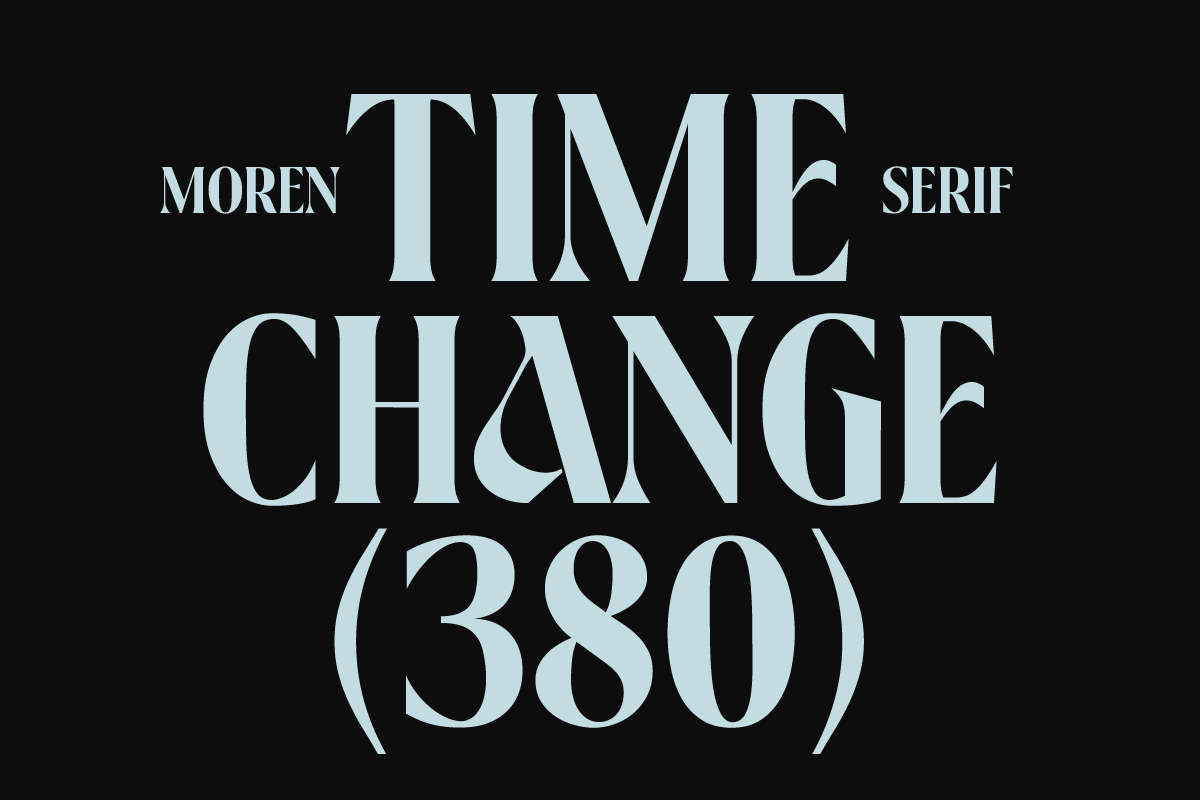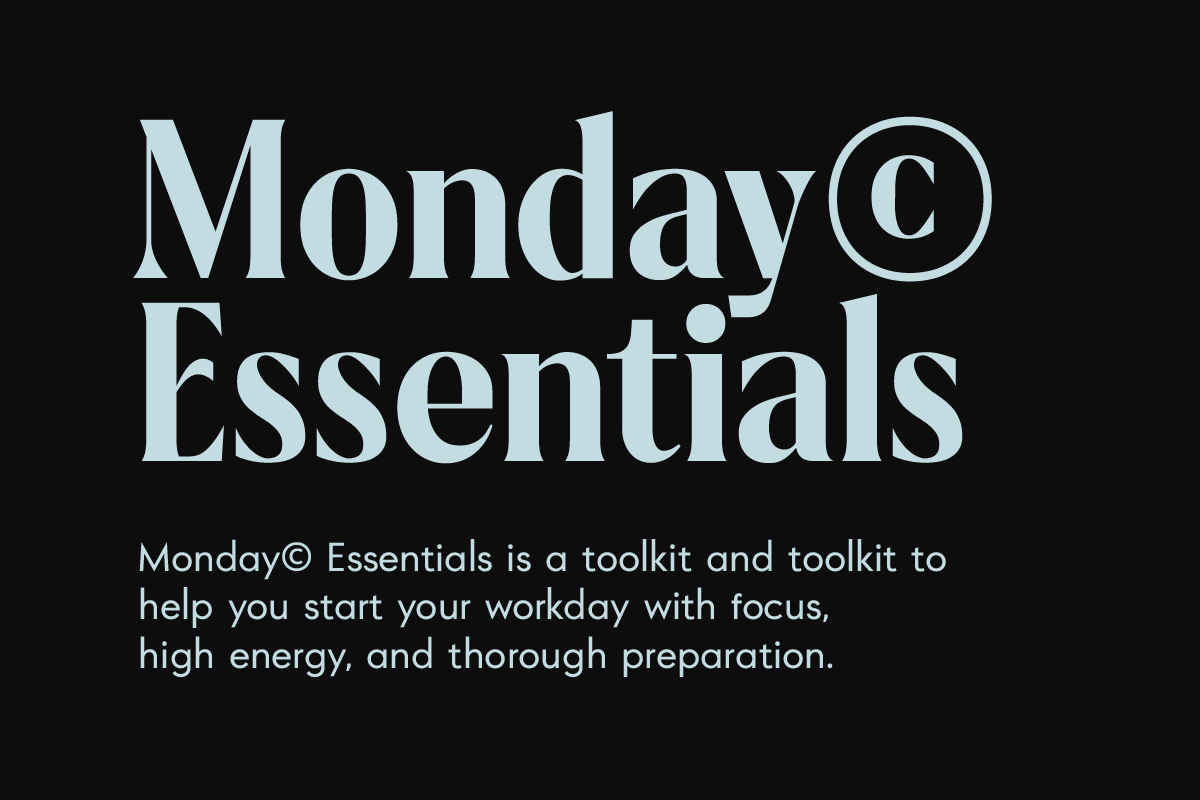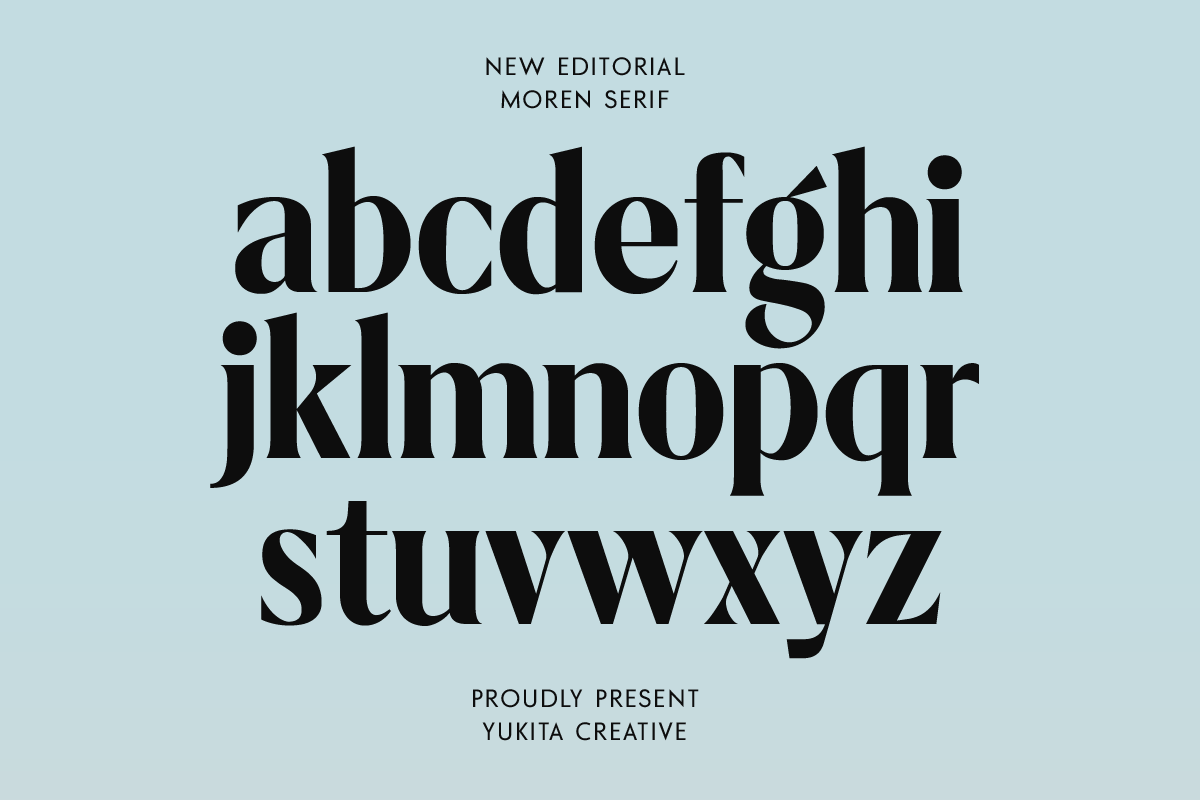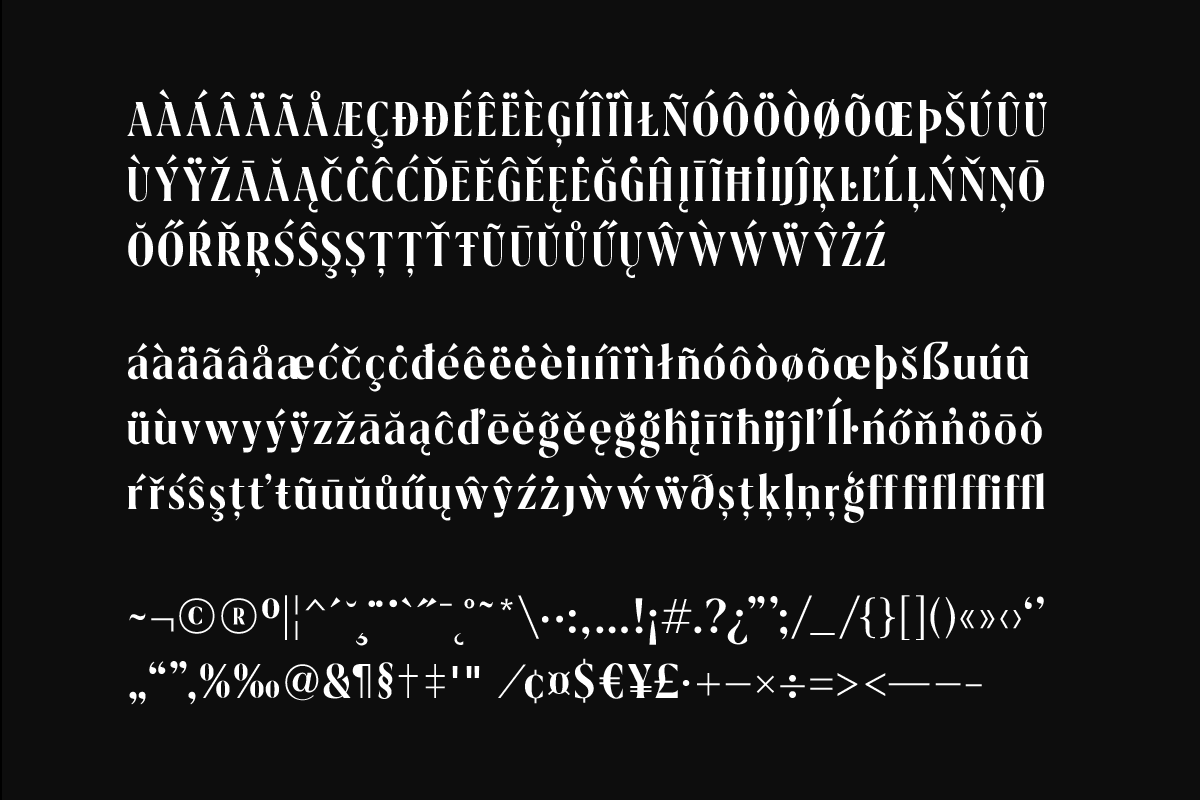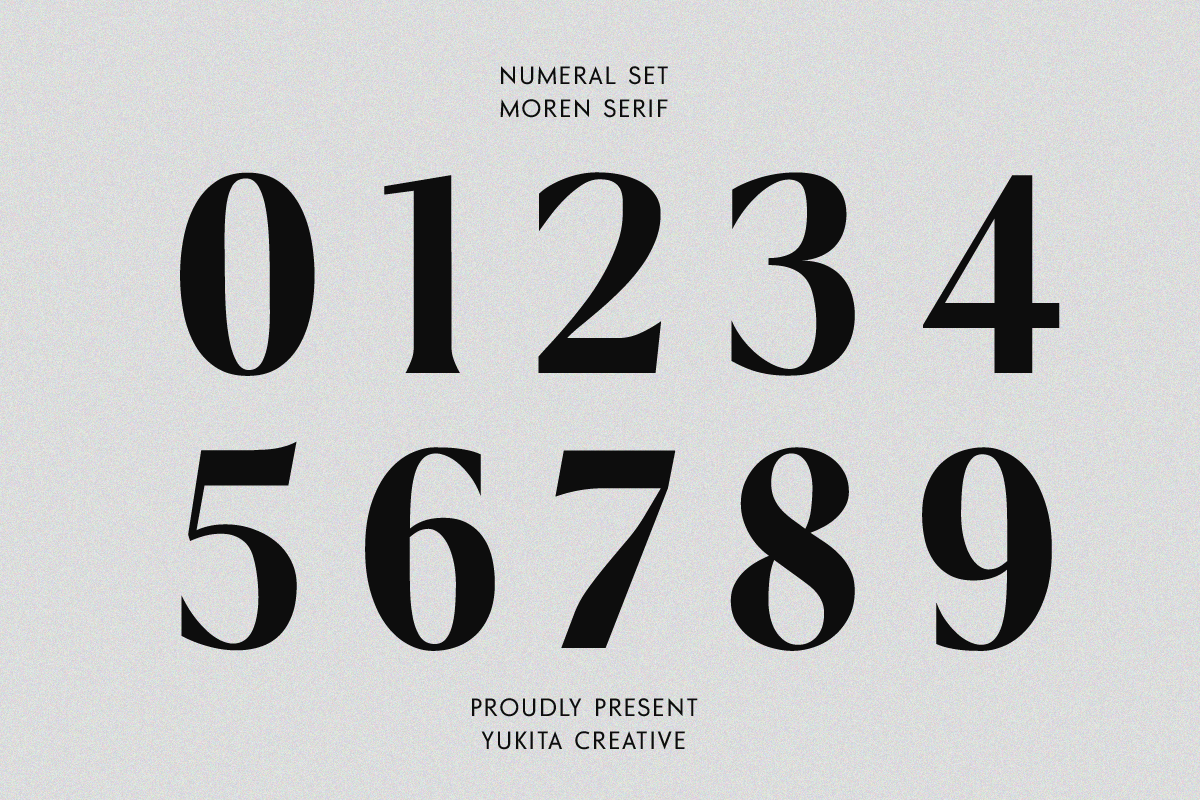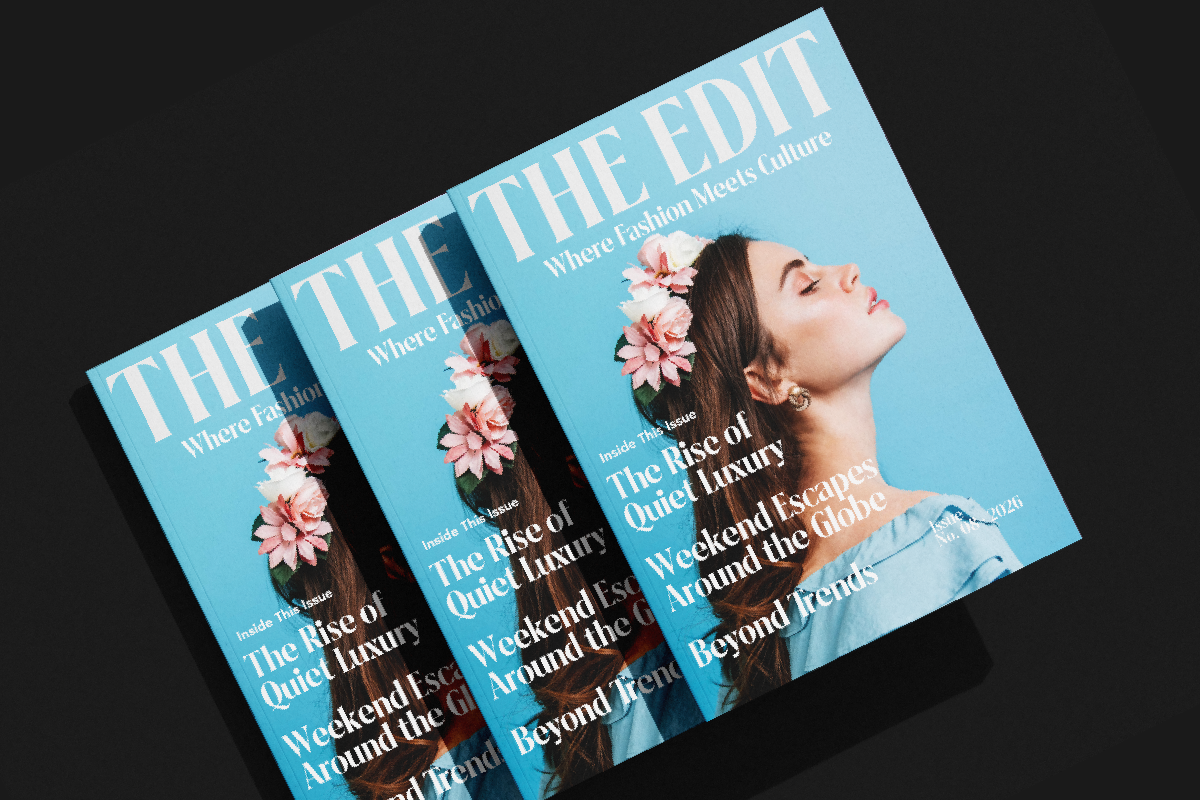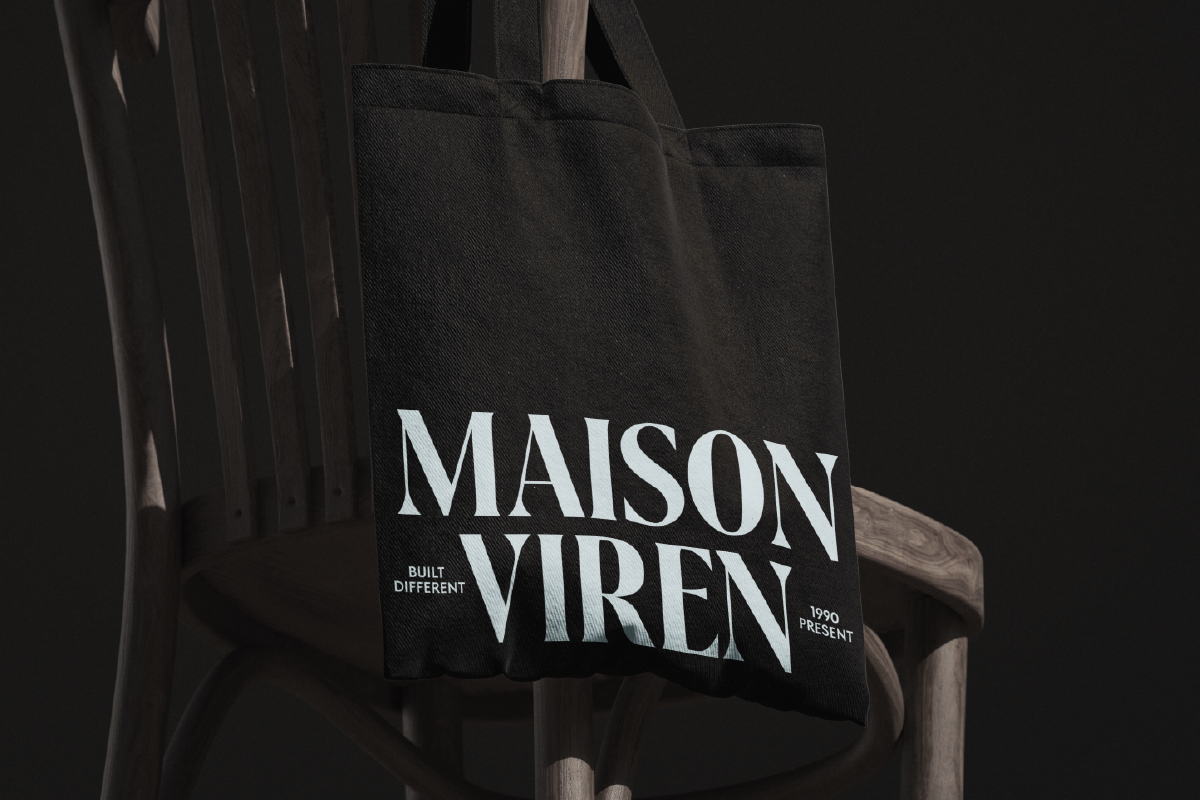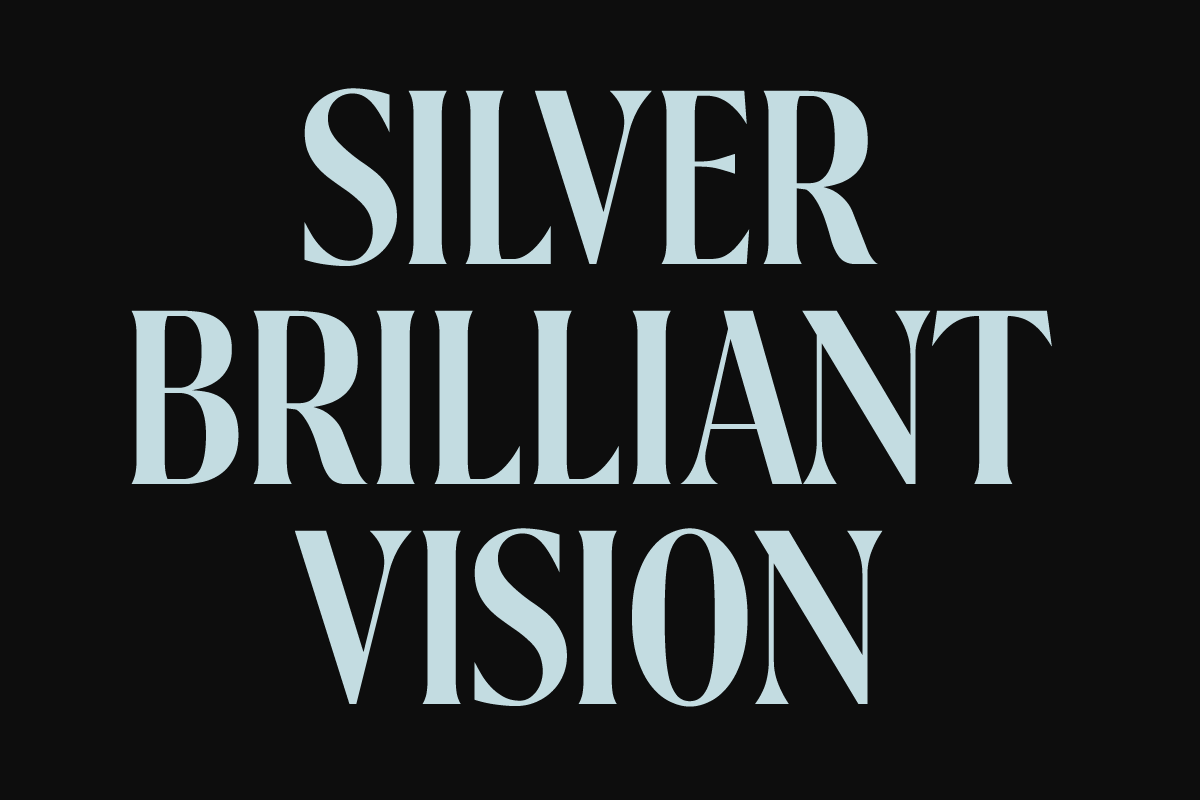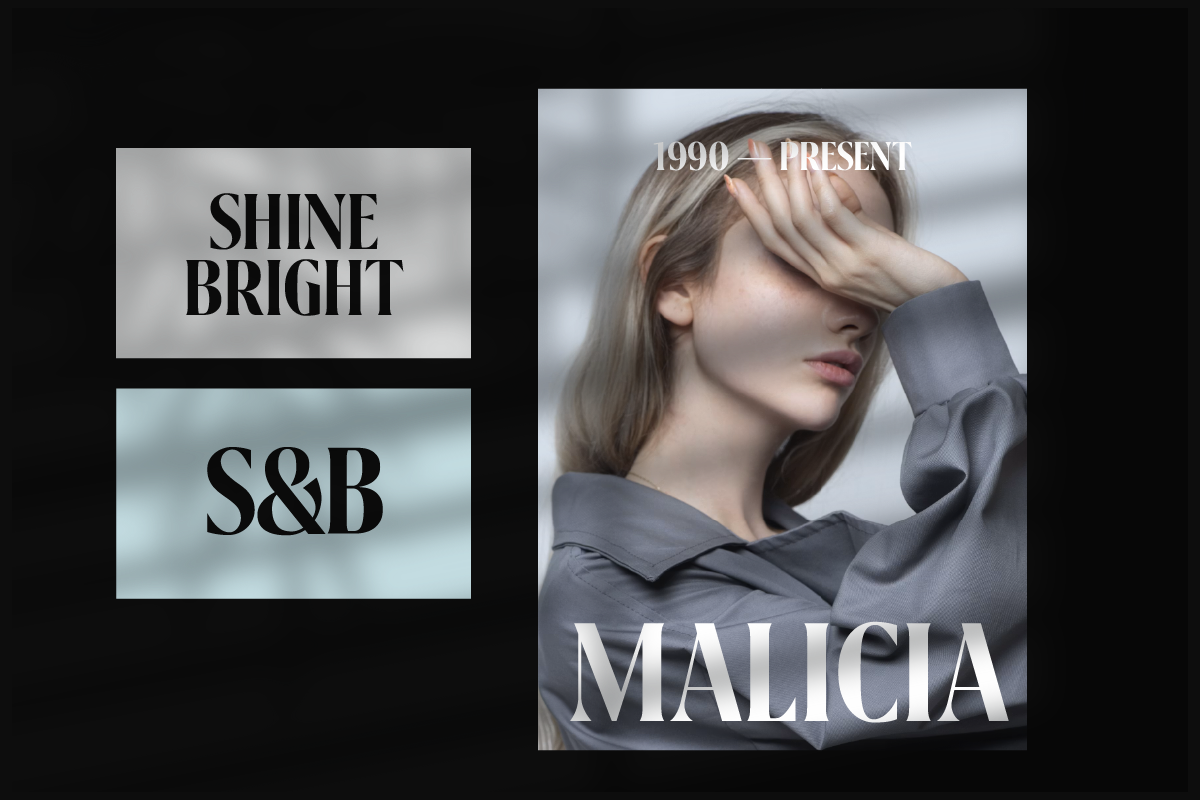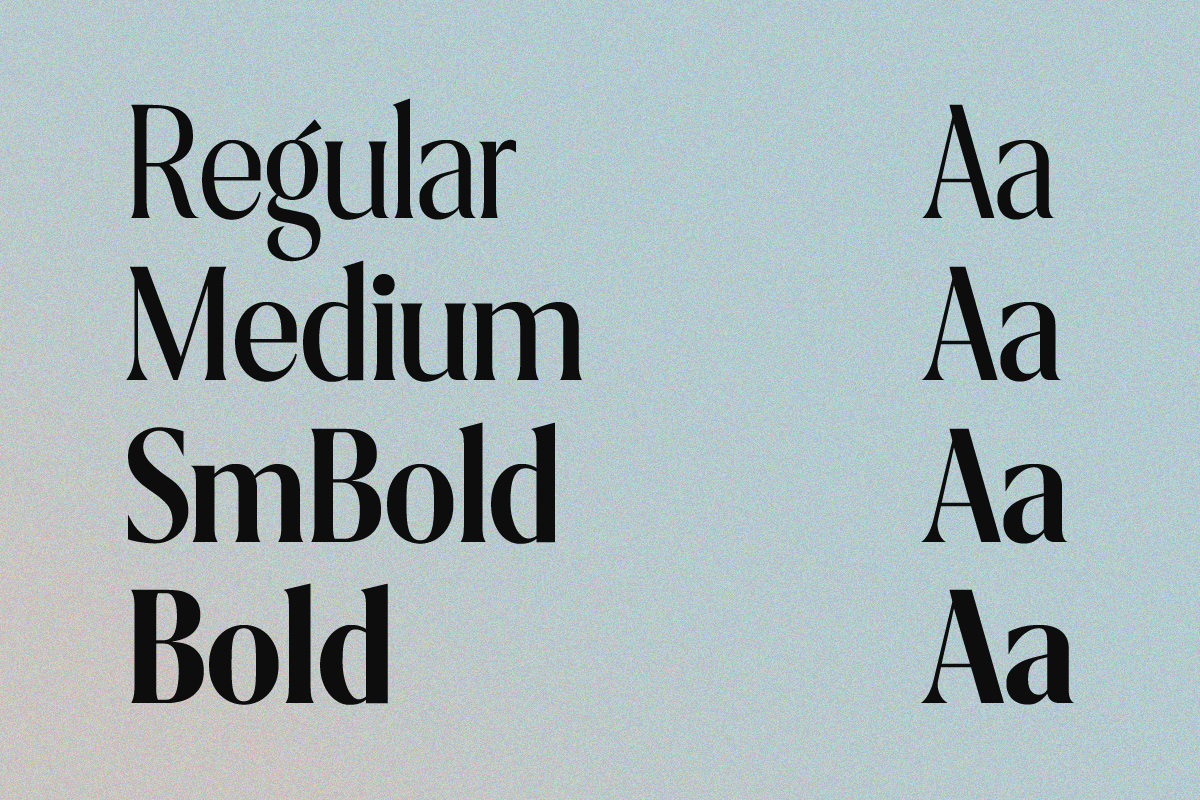
Moren - Modern Serif Family Font
Moren is a refined modern serif font family crafted for elegant branding and editorial design. With high-contrast strokes, graceful curves, and distinctive letterforms, it delivers a sophisticated, luxurious look while maintaining excellent readability.
Available in 4 versatile weights—Regular, Medium, SemiBold, and Bold—Moren is ideal for creating clear visual hierarchy across a wide range of projects. Perfect for logos, branding, magazines, packaging, fashion, beauty, invitations, and premium marketing materials, Moren brings timeless elegance with a contemporary touch.
4 Font Weights: Regular, Medium, SemiBold & Bold
Elegant High-Contrast Letterforms
Perfect for Logos, Editorial, Fashion, and Print Design